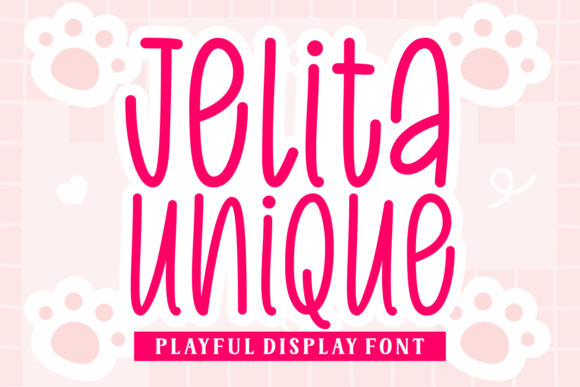
Behold the enchanting world of Jelita Unique Font, a captivating display font designed to leave an indelible mark on your creative endeavors. Its playful and tall reaching characters, reminiscent of a joyous dance, will infuse your designs with a dash of whimsy and an air of sophistication. Jelita Unique isn't just a font; it's an artistic gateway to a world of imagination, where your words take on a life of their own.
Crafted with meticulous attention to detail by the renowned Creative Fabrica Fonts, Jelita Unique is tailored to dance flawlessly across any small display, whether it's a greeting card, a print, or a captivating display board. Its innate charm and versatility make it the perfect companion for those seeking to make a lasting impression, to etch their thoughts and ideas into the hearts and minds of their audience.
Journey into a realm of creative possibilities with Jelita Unique, where the boundaries of expression are limitless. Embrace its enchanting aura and watch as your words transform into visual masterpieces, captivating the hearts of all who behold them. Let Jelita Unique be your guide, your muse, your trusted companion on this artistic odyssey.
Don't resist the allure of Jelita Unique, the font that breathes life into your creative endeavors. Its playful spirit and undeniable elegance will elevate your designs, leaving an imprint of creativity and inspiration. Embrace the allure of Jelita Unique and embark on a creative journey like no other.